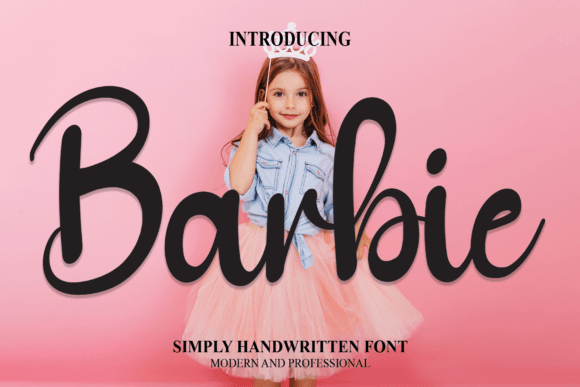
Introducing Barbie Font: The Ultimate Handwritten Font for Designers and Crafters
Are you tired of using the same old fonts for your designs and crafts? Look no further! Barbie Font is a fun and friendly handwritten font that’s perfect for adding a personal touch to your projects. Whether you’re a designer, crafter, or simply someone who loves to create, this font is sure to become your new favorite.
What is Barbie Font?
Barbie Font is a beautiful, handwritten font that’s inspired by the classic Barbie doll. It’s a modern take on traditional handwriting, with a playful and carefree vibe that’s perfect for a wide range of projects. The font is highly legible and versatile, making it suitable for use in everything from digital designs and presentations to greeting cards and crafts.
Features of Barbie Font
- Handwritten style: Barbie Font has a unique, handwritten style that’s perfect for adding a personal touch to your projects.
- Highly legible: The font is highly legible, making it easy to read and understand.
- Versatile: Barbie Font is versatile and can be used in a wide range of projects, from digital designs to crafts and greeting cards.
- Fun and friendly: The font has a fun and friendly vibe that’s perfect for creating projects that are playful and engaging.
Uses for Barbie Font
Barbie Font is perfect for a wide range of projects, including:
- Crafts: Use Barbie Font to add a personal touch to your crafts, such as scrapbooking, card making, and DIY projects.
- Digital design: Use the font in your digital designs, such as social media graphics, blog posts, and website headers.
- Presentations: Add a touch of personality to your presentations with Barbie Font.
- Greeting cards: Use the font to create fun and playful greeting cards for special occasions.
Why You’ll Love Barbie Font
There are many reasons why you’ll love Barbie Font. Here are just a few:
- High-quality design: Barbie Font is designed to high standards, ensuring that your projects look professional and polished.
- Unique style: The font has a unique style that’s sure to make your projects stand out from the crowd.
Tips for Using Barbie Font
Here are a few tips for using Barbie Font:
- Use it with images: Barbie Font looks great when paired with images, especially playful and colorful ones.
- Experiment with colors: Try using different colors with Barbie Font to add an extra layer of personality to your projects.
- Mix it with other fonts: Don’t be afraid to mix Barbie Font with other fonts to create a unique and interesting look.
- Have fun: Most importantly, have fun with Barbie Font! It’s a playful and versatile font that’s perfect for creative projects.
In conclusion, Barbie Font is a fun and friendly handwritten font that’s perfect for designers, crafters, and anyone who loves to create. With its highly legible and versatile design, it’s suitable for use in a wide range of projects, from digital designs to crafts and greeting cards. Whether you’re looking for a font to add a personal touch to your projects or simply want to try something new, Barbie Font is an excellent choice.